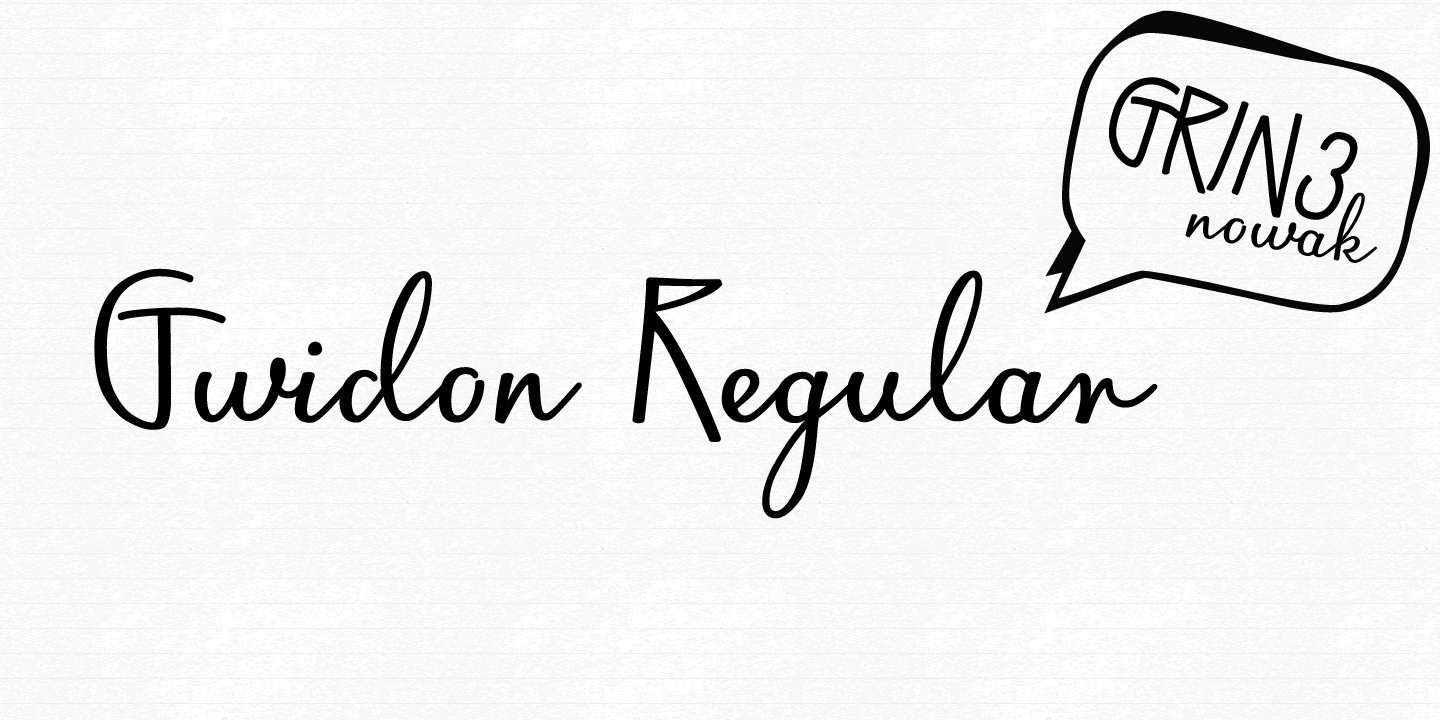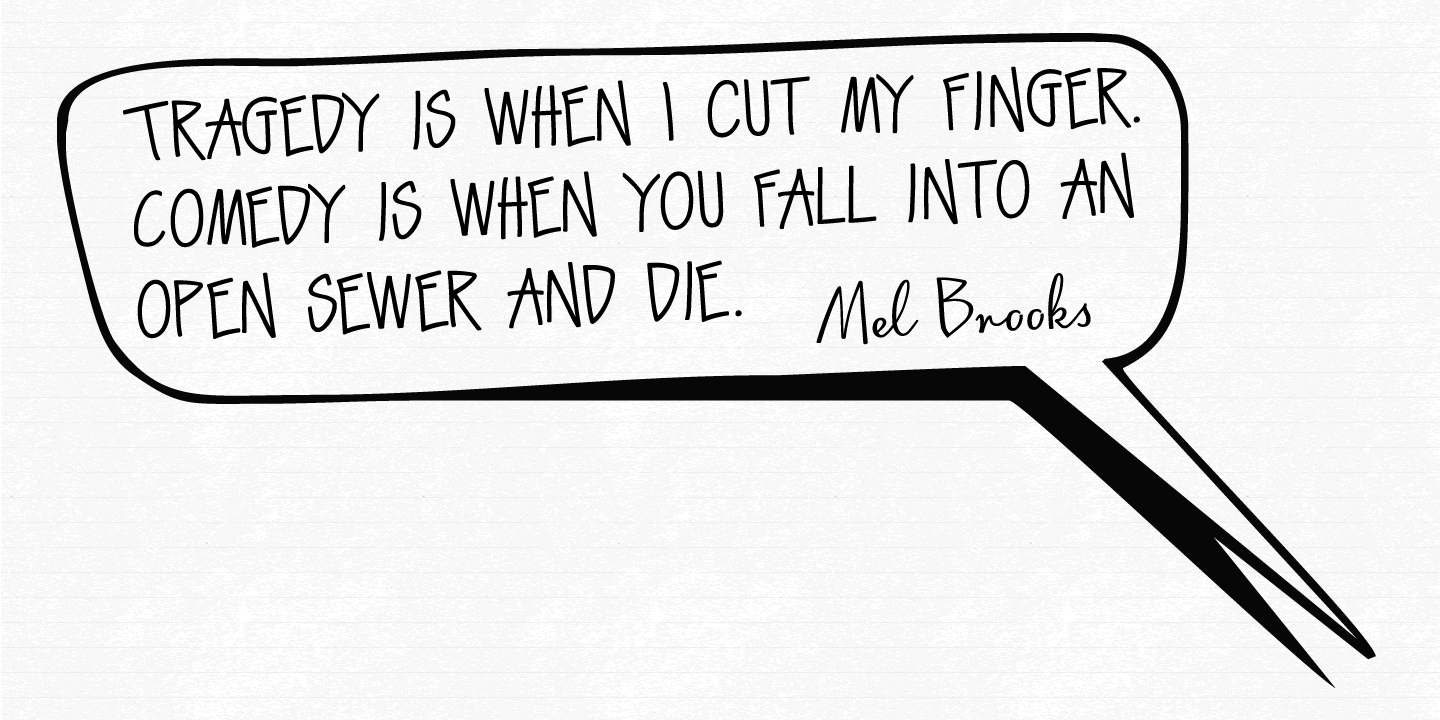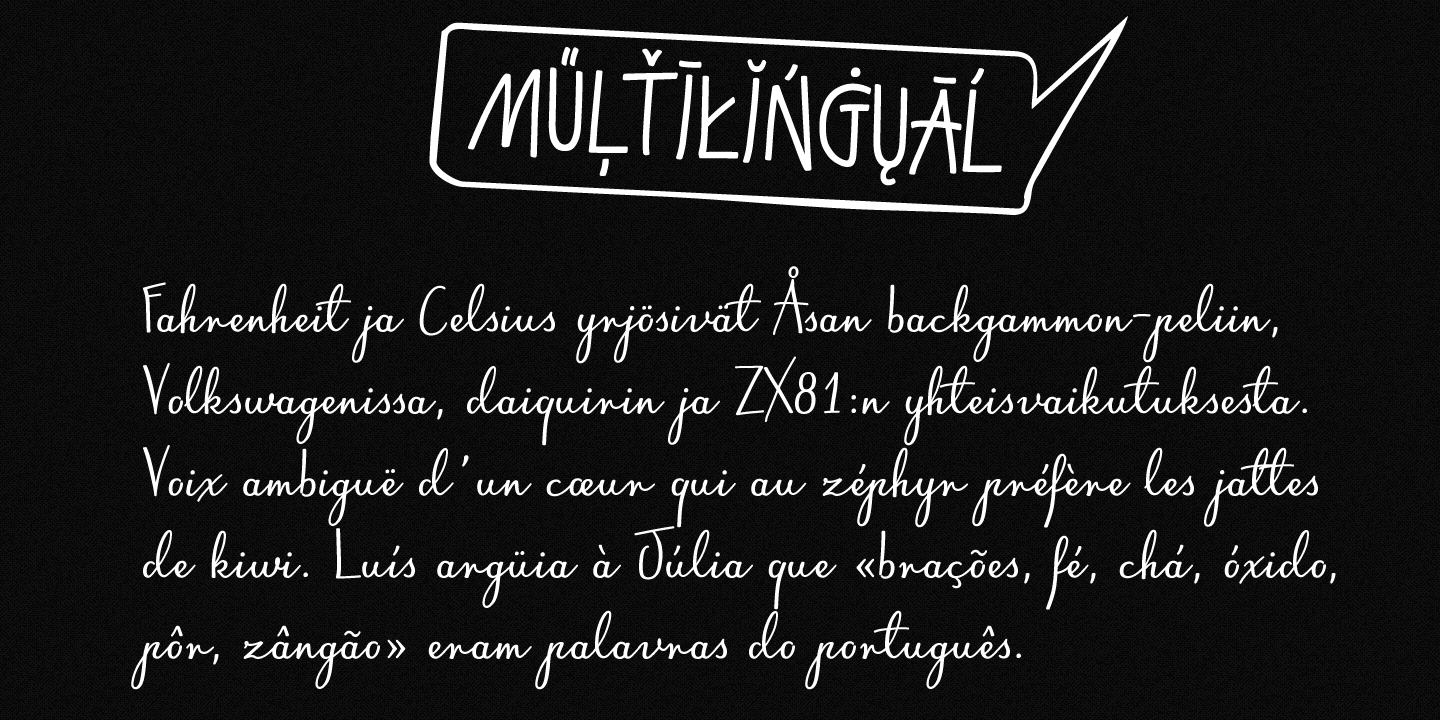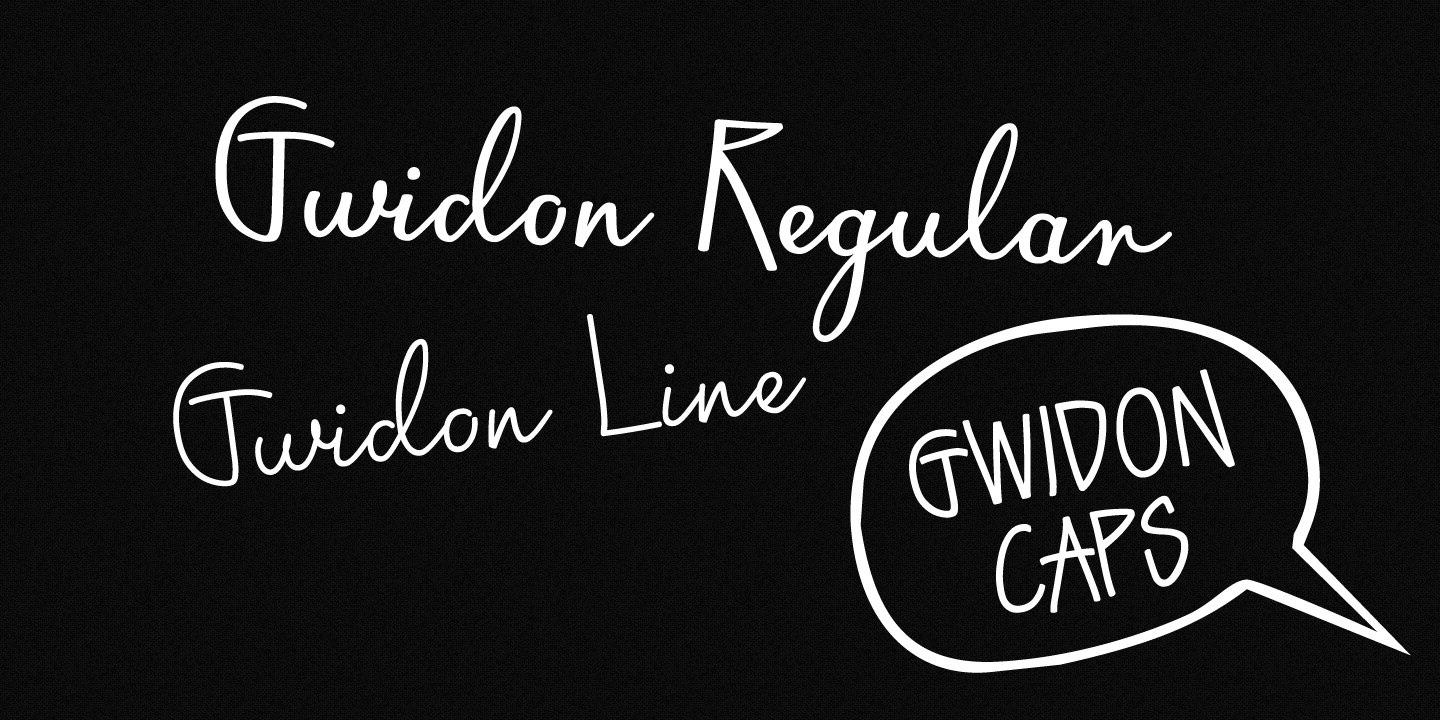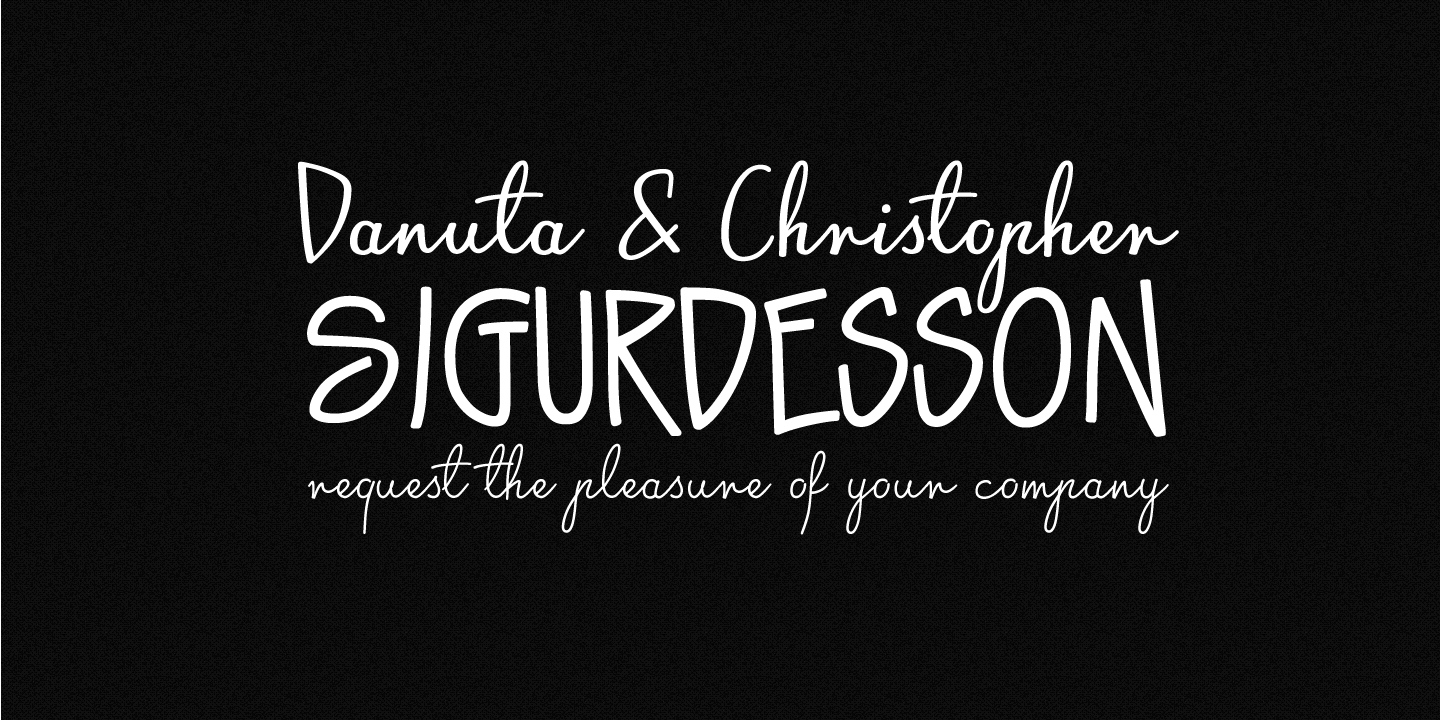
Gwidon
Font Family by GRIN3 (Nowak)
Gwidon is a family of three quite distinct fonts that perform together very well.
Gwidon Regular and Gwidon Line are elegant, fully connected scripts with ligatures to help with flow and readability.
Gwidon Caps is all capital letter font which include 2 version for each letter, easily reachable through keyboard upper and lower keys.
Gwidon can be used for invitations, greeting cards, posters, advertising, weddings, books, menus etc.
Language support includes Western, Central and Eastern European character sets, as well as Baltic and Turkish languages.